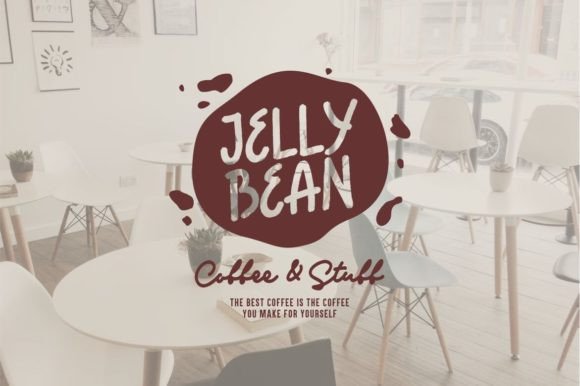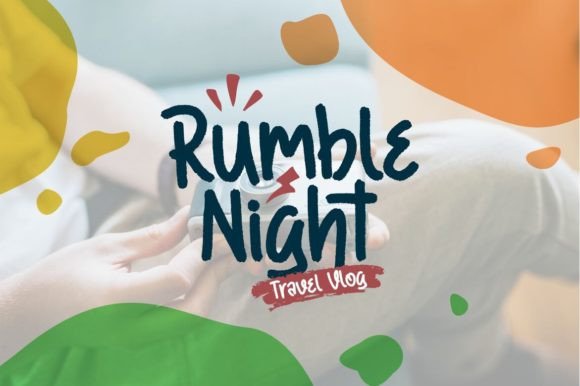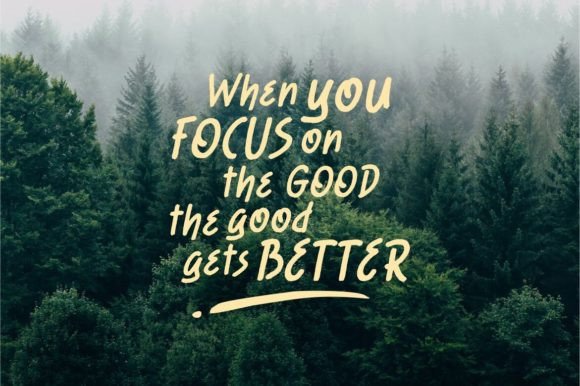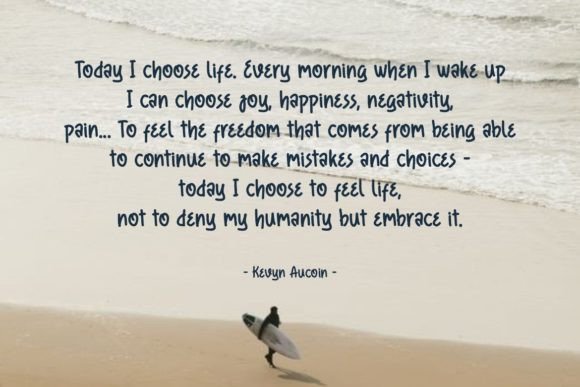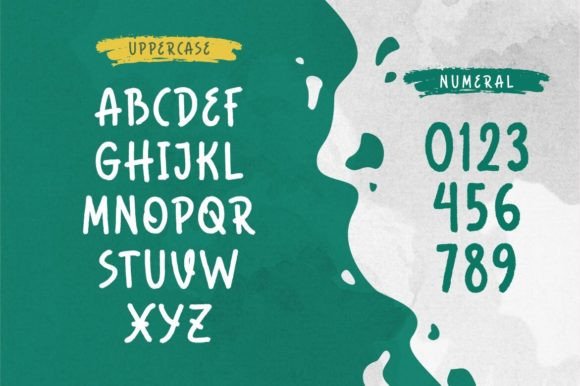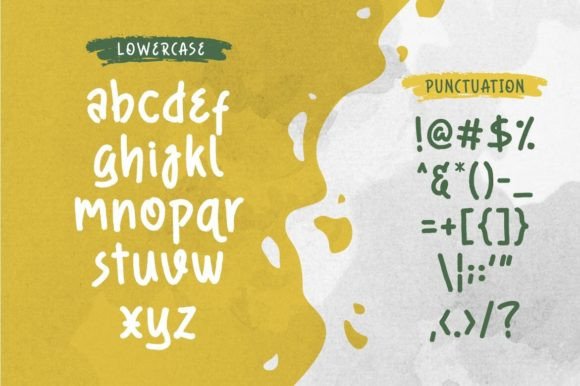
The Green Lagoon Font: A Refreshing Choice for Creative Projects
Have you ever been in the middle of a design project, and suddenly, you’re stuck on finding the perfect font? I recall a recent experience where I was working on a branding project for a trendy coffee shop. My client wanted a font that was youthful, joyful, and would appeal to a young audience. After hours of searching, I stumbled upon the Green Lagoon font, and it was love at first sight! 🌟
A Personal Review of Green Lagoon
As a designer, I’m always on the lookout for fonts that can bring a unique touch to my projects. Here’s my honest review of the Green Lagoon font:
- ✨ Hand-drawn vintage typeface with a unique character
- ✅ Perfect for branding food places, restaurants, cafes, and coffee shops
- ✅ Youthful and joyful vibe that’s ideal for logo design, business branding, posters, flyers, and social media kits
- ⚠️ Limited use for formal or corporate projects due to its playful nature
- 🤔 May not be suitable for very small font sizes due to its hand-drawn texture
The Story Behind Green Lagoon
The Green Lagoon font was inspired by the unique typography found in vintage travel posters and advertisements. Its creator, a talented type designer, aimed to capture the carefree spirit of a tropical getaway. The result is a font that’s both nostalgic and modern, making it perfect for creative projects that require a touch of whimsy.